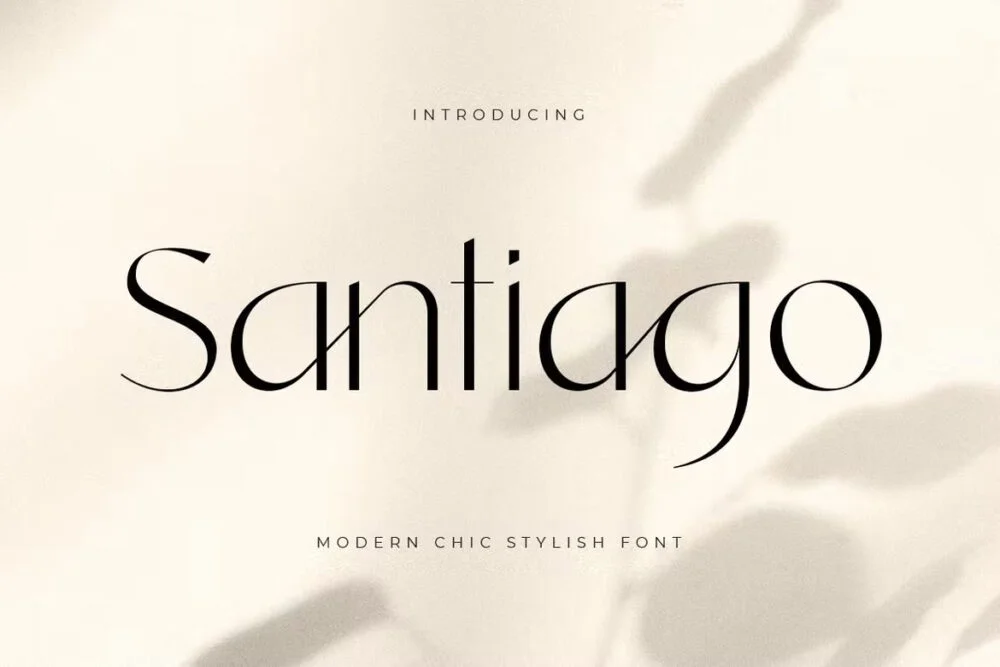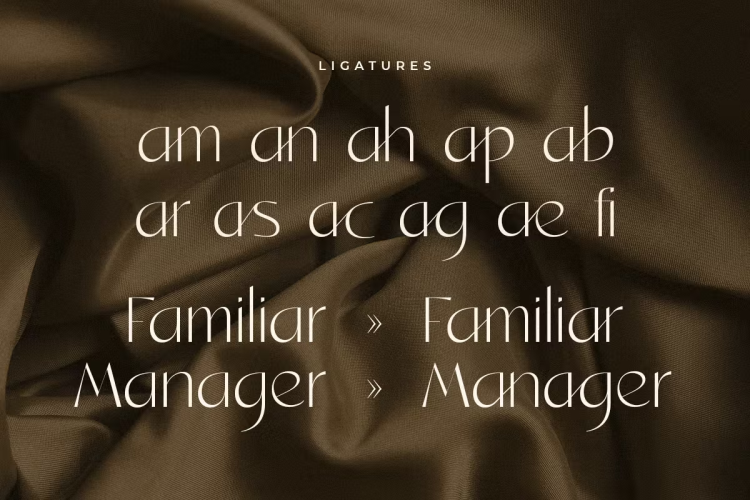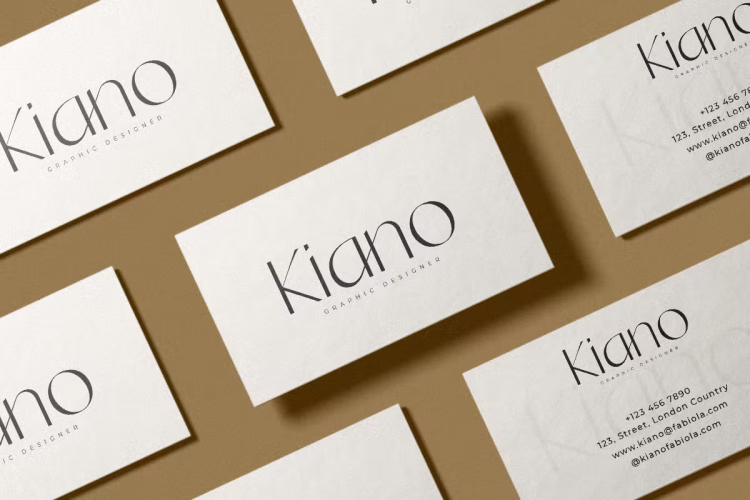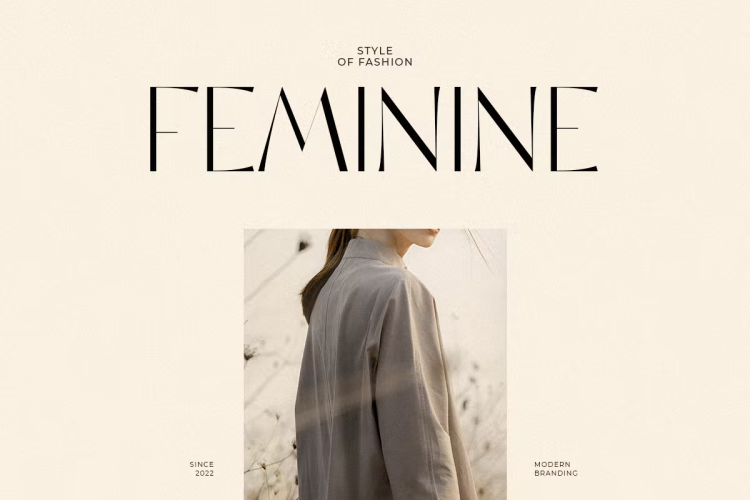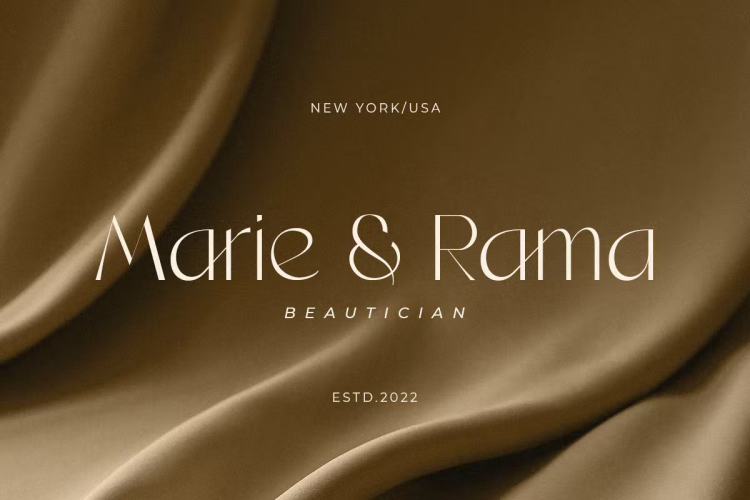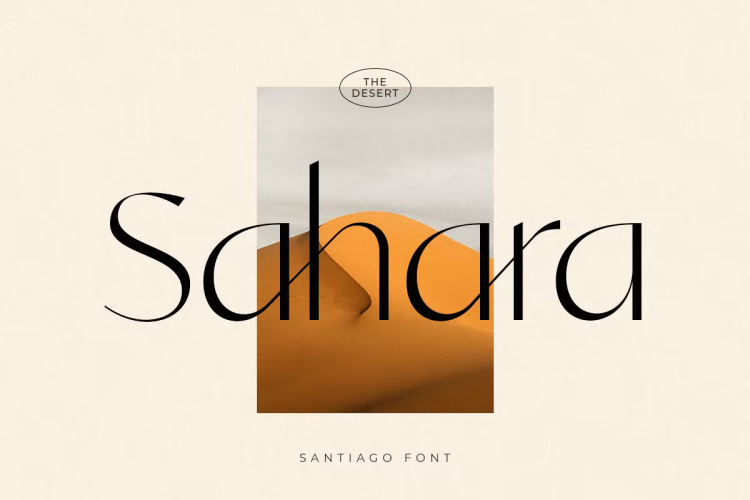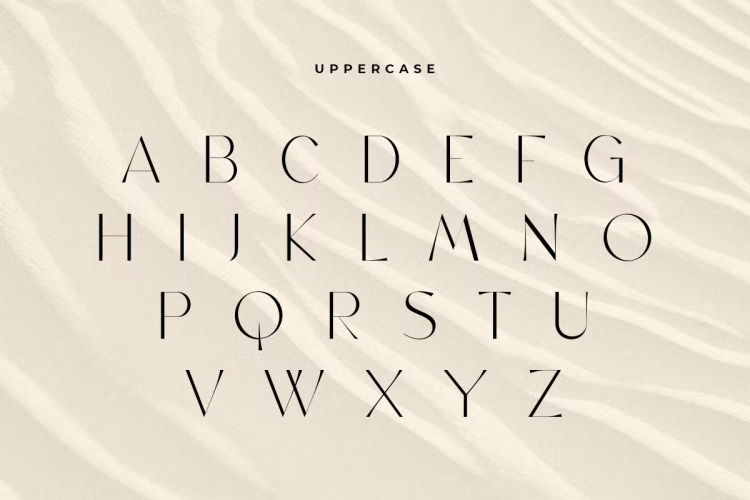
Santiago Font
Santiago Font is A Modern Chic Stylish font that is specially crafted with love to make your brand stand out. A new font that we created especially for branding needs, with unique characters and awesome ligature characters is ready to add value to your brand. It is so nice to leverage designers or product owners that need solutions to make their design look more beautiful, chic, and modern. And especially for font, We prepared any ligature characters to help you create unlimited variations for your creative needs.
Modern chic font ready with:
Santiago Font is a Sans Serif Fonts font that brings a professional and versatile look to your projects. Santiago Font is A Modern Chic Stylish font that is specially crafted with love to make your brand stand out.